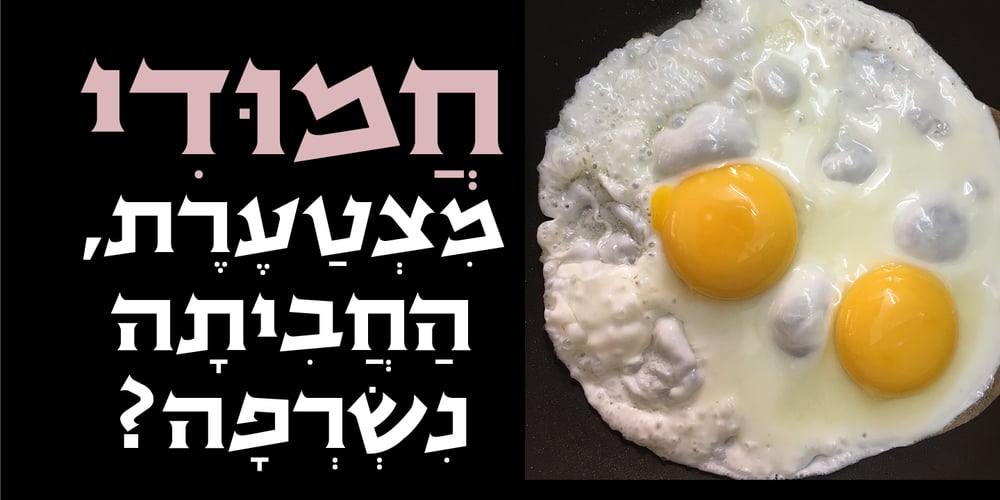
Avnei Gad Hakuk MF Font Family was designed by Gad Ulman and published by Masterfont. Avnei Gad Hakuk MF contains 2 styles and family package options. Carved in stone or wood? this old looking typeface will be great for signage, posters and short texts too.